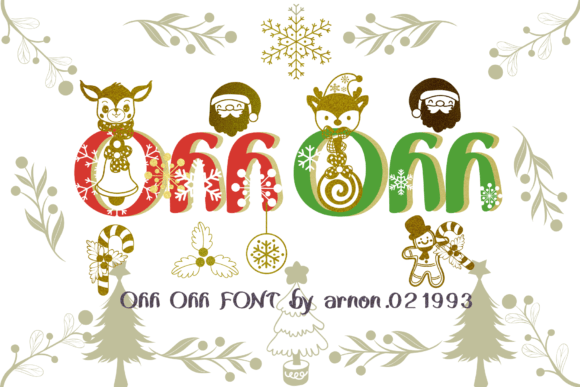
Journey into the world of captivating artistry with Ohh Ohh, an enchanting decorative font brimming with charm and allure. Its whimsical nature dances across your designs, adding a touch of magic to every letter and word. Enter a realm where creativity flourishes, where your imagination takes flight, and your projects come alive with a unique and captivating flair.
Ohh Ohh is not just a font; it's an experience. Its elegant curves and playful strokes evoke a sense of wonder and joy, inviting your audience to immerse themselves in the beauty of your creations. Elevate your designs to new heights, captivating their attention with every stroke, every word, every masterpiece you craft.
Unleash your creativity and let Ohh Ohh guide you on an artistic adventure. Its versatility knows no bounds, flowing effortlessly across logos, branding, posters, invitations, and countless other projects. Create designs that resonate with your audience, leaving a lasting impression that lingers in their minds.
With Ohh Ohh as your creative ally, you'll discover hidden depths of expression. Its hand-lettered charm adds a touch of authenticity and warmth, making your designs feel personal and inviting. Your words will dance across the page, carrying your message with grace and style, captivating hearts and minds alike.
Don't settle for ordinary fonts that fade into the background. Embrace the extraordinary with Ohh Ohh, a decorative masterpiece that elevates your designs to new realms of beauty and impact. Let your creativity shine through, and let Ohh Ohh be the brush that paints your artistic vision into reality.